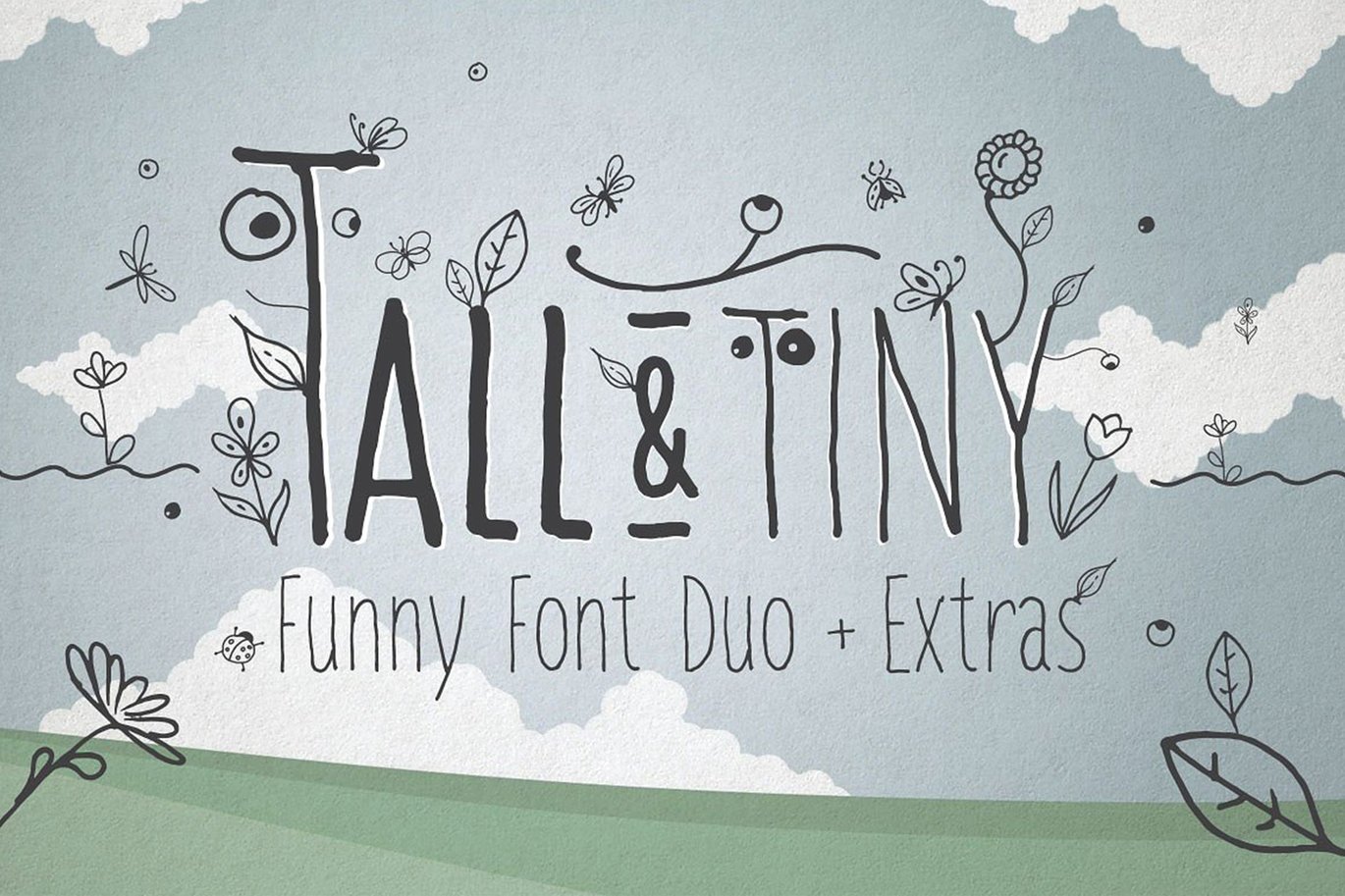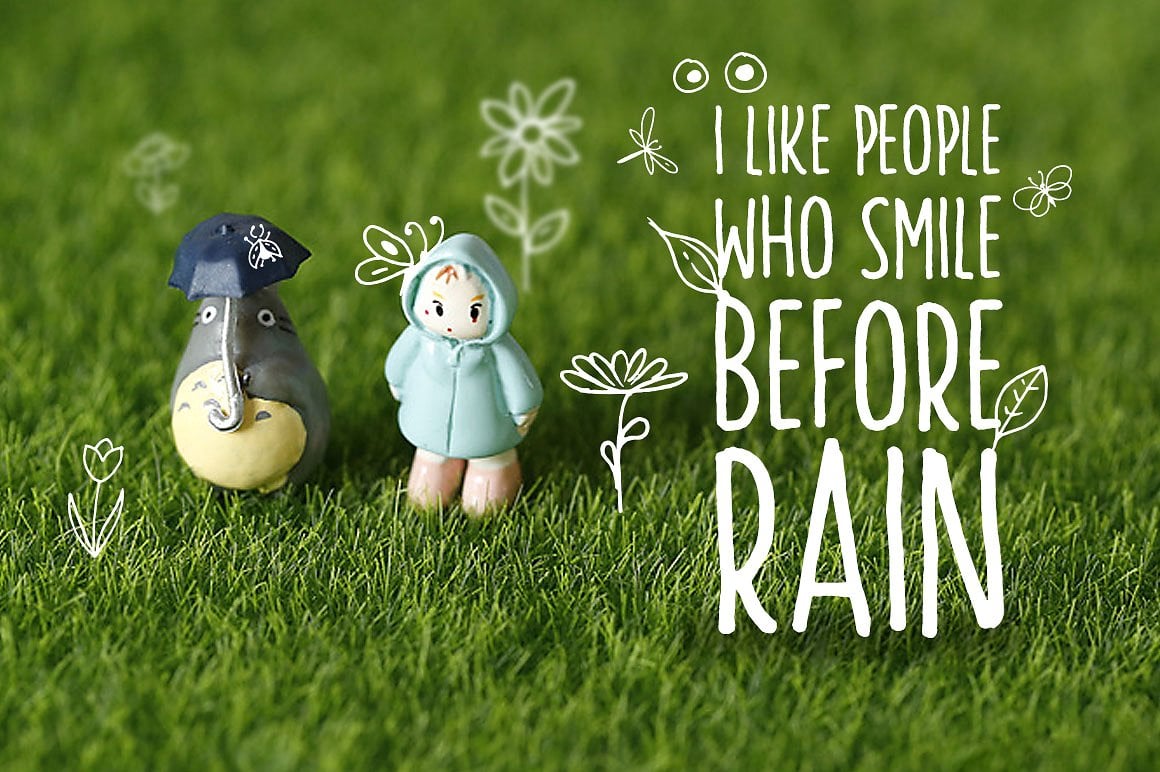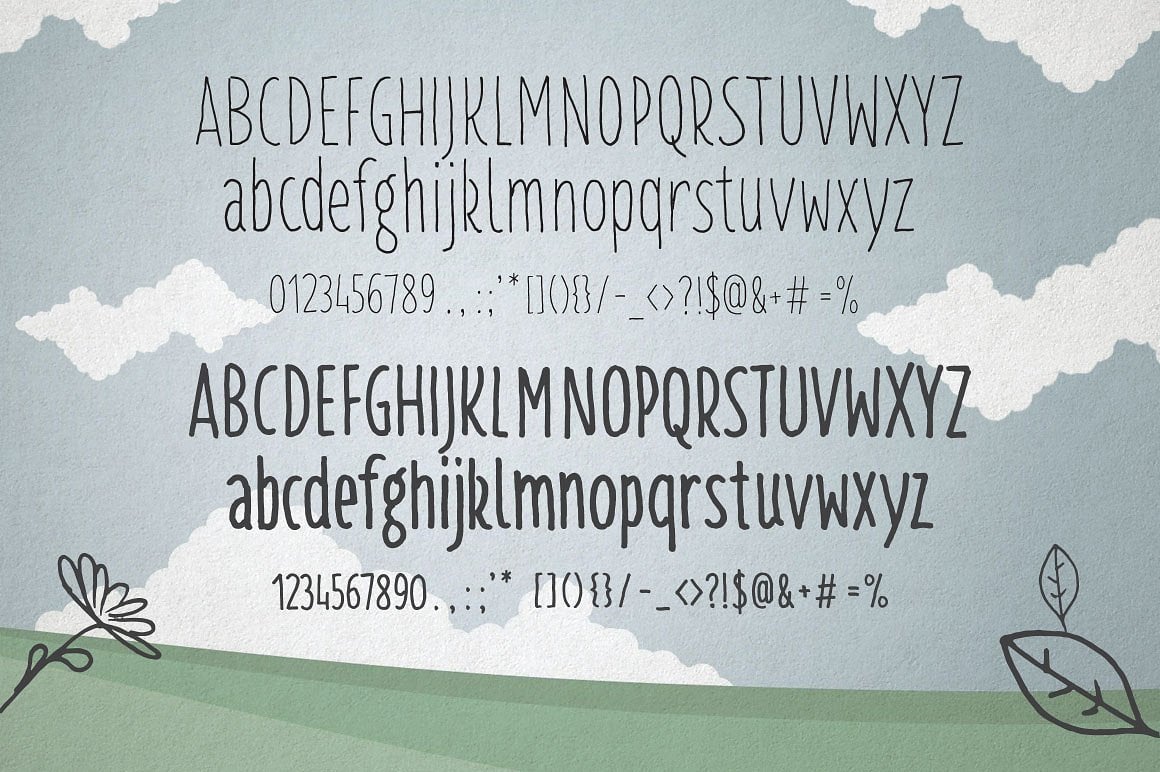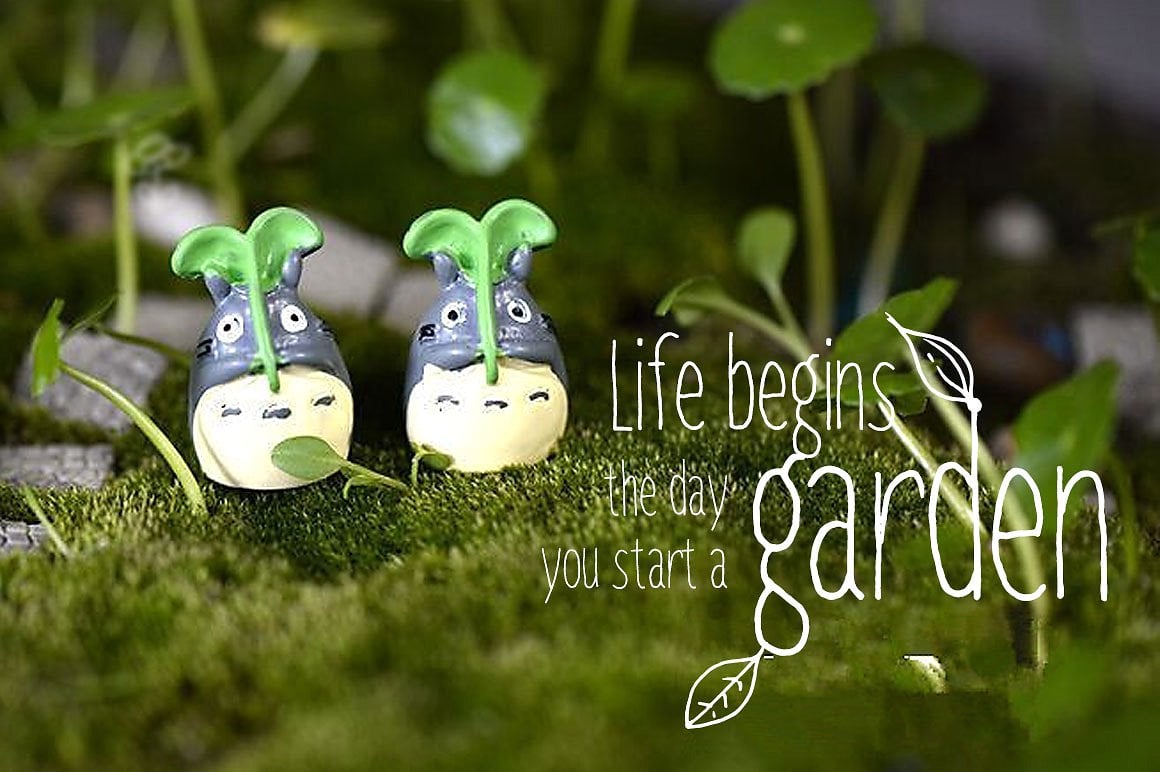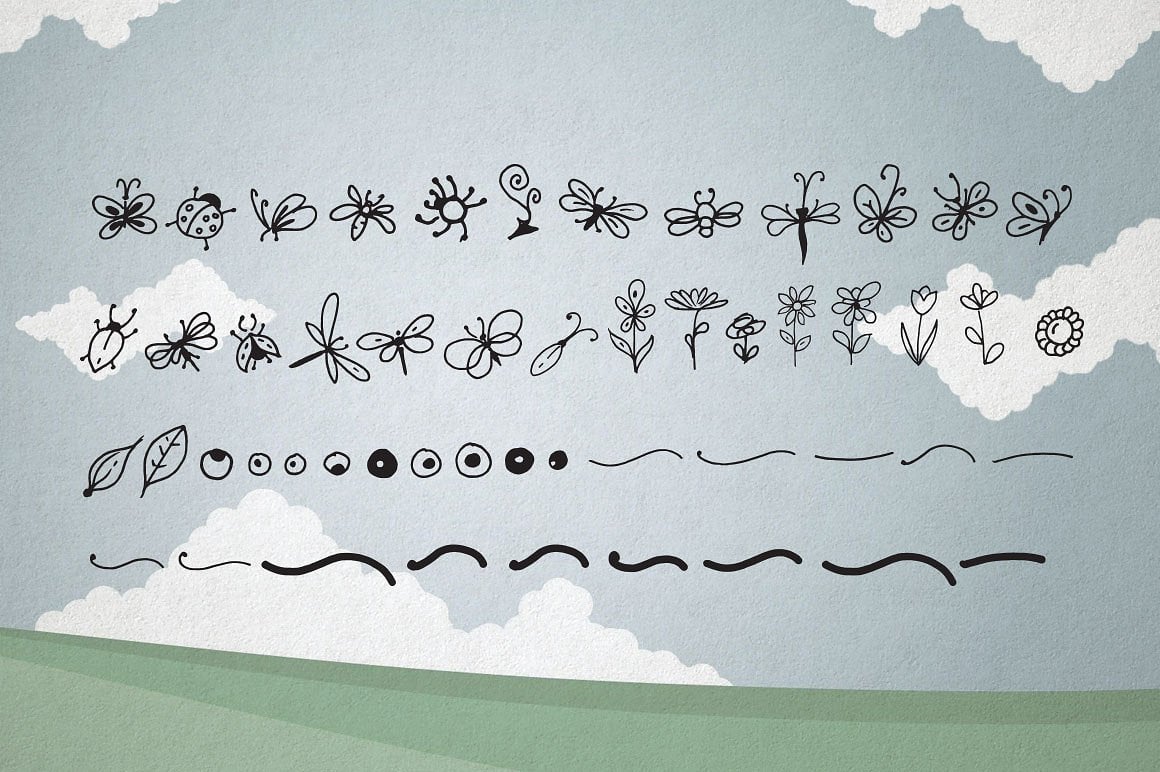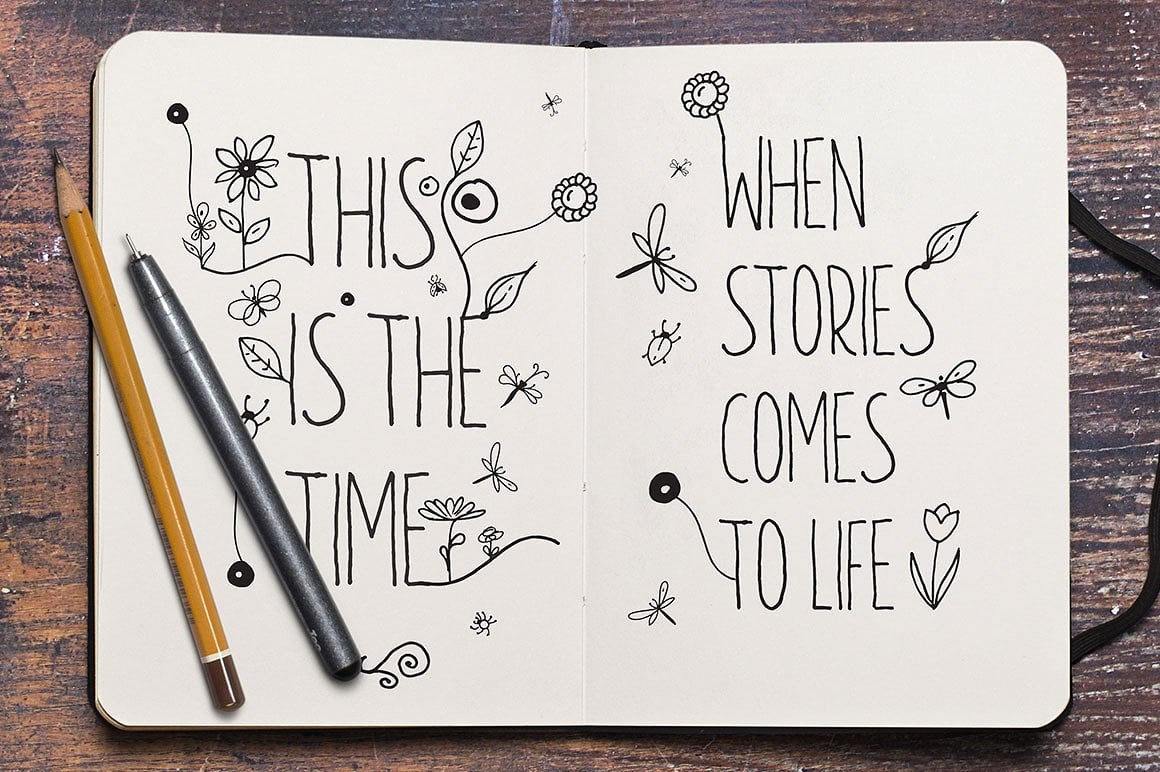
Tall & Tiny Font Duo
This is Tall & Tiny Font Duo, a very playful and funny handmade font. I create this font for my son to use it for a PowerPoint project in school. This font comes with 52 hand drawn extras like bugs, insects, flowers, lines and leaves. You can use this fonts to create funny presentations, invitations, playful branding and many more.